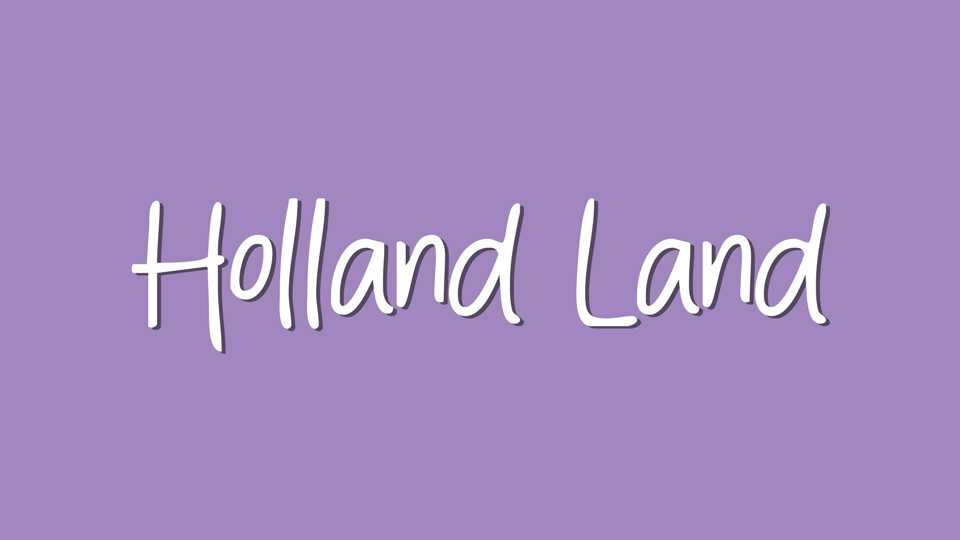
Download Holland Land font, a simple and casual handwritten typeface, perfect for adding a natural, and organic vibe to any project. Holland Land font is perfectly suited for quotes, packaging, branding, invitations, greeting cards and children books